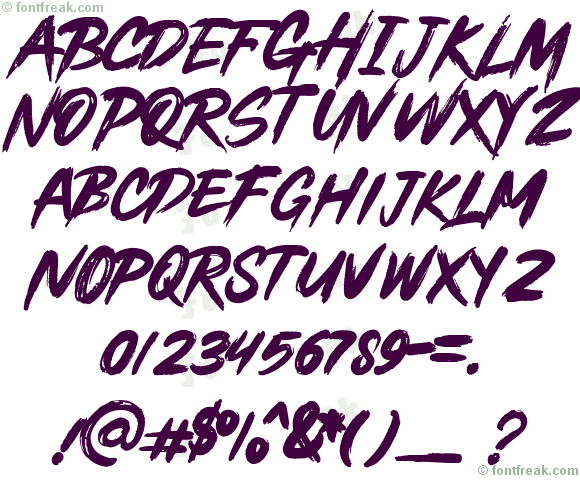
Buchery
About Buchery
Buchery, designed by Burhan Afif in 2020, is a striking display font that captivates with its bold, handwritten style. This font falls into the category of decorative typefaces, characterized by expressive strokes and dynamic forms that mimic the fluidity of natural handwriting. The Buchery font showcases a medium to heavy stroke weight, offering a substantial presence in any design, while the contrast between thick and thin elements adds depth and visual interest. The spacing between characters is thoughtfully crafted, allowing for readability without compromising artistic flair.
This versatile font is ideal for a variety of creative applications. It works exceptionally well for wedding invitations, where its playful yet elegant design can enhance the celebratory tone. Additionally, Buchery can shine in movie posters, lending a unique touch that captures the audience's attention. Restaurant menus are another excellent use case, as the font's inviting style can evoke a sense of warmth and hospitality. Furthermore, it can be utilized in branding for small businesses, helping to establish a memorable identity.
What sets Buchery apart is its ability to combine artistic flair with functionality, making it a standout choice for those who wish to make a statement in their designs. Its modern yet timeless aesthetic resonates across various platforms, ensuring it leaves a lasting impression on viewers.